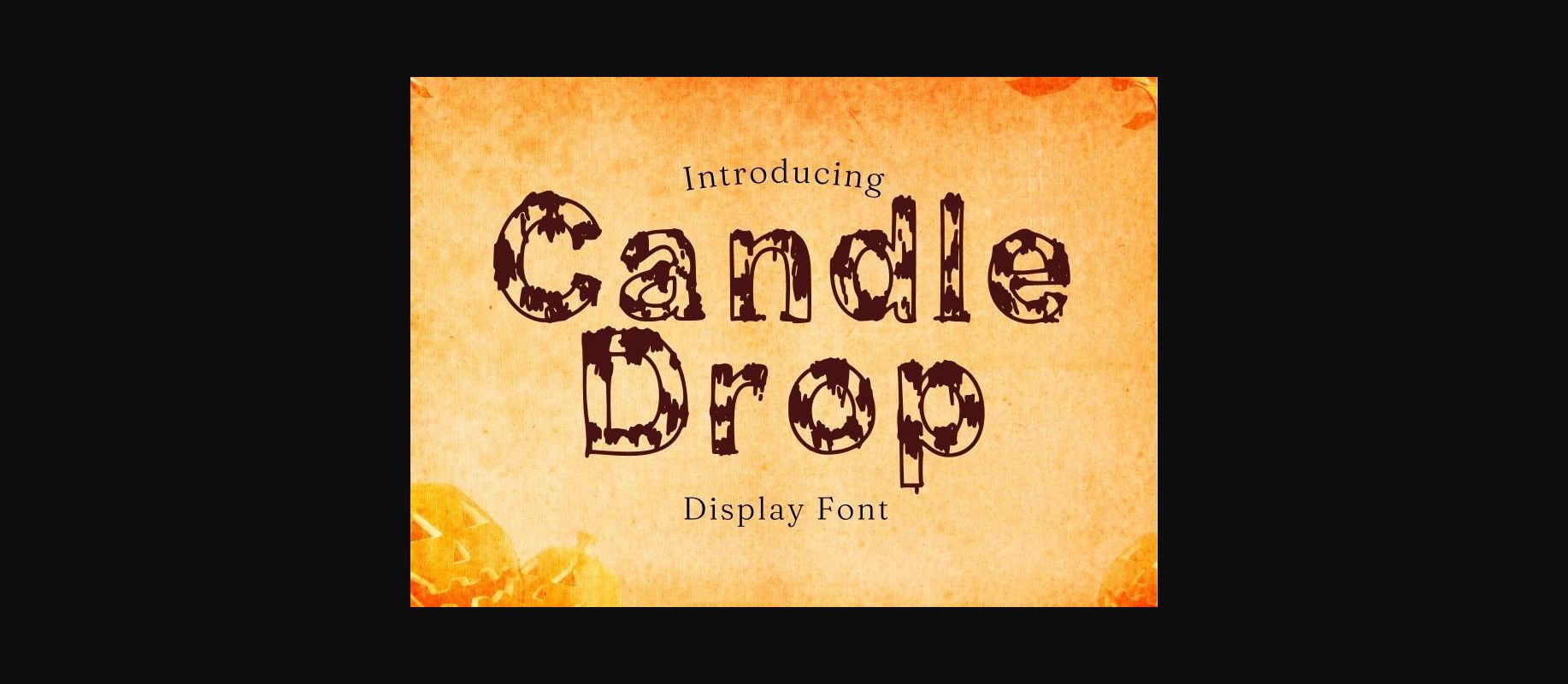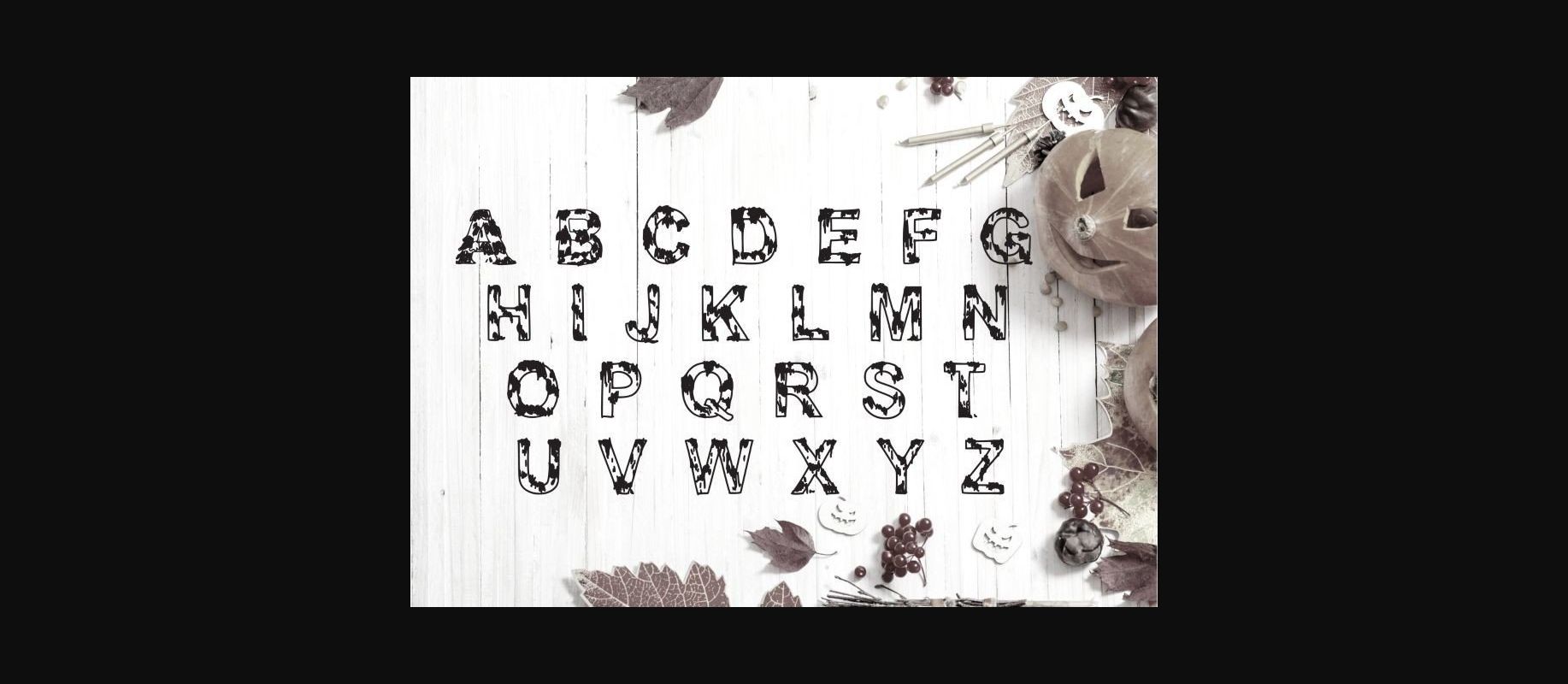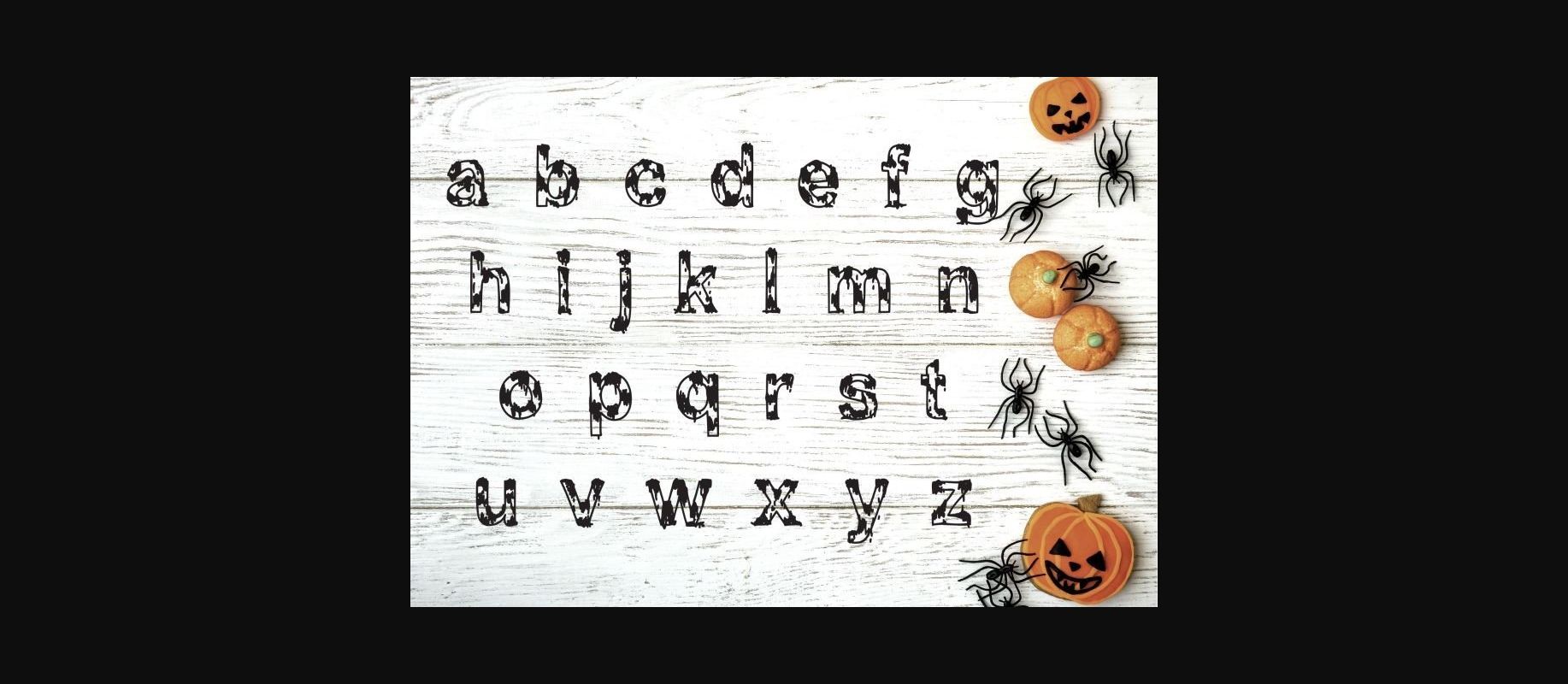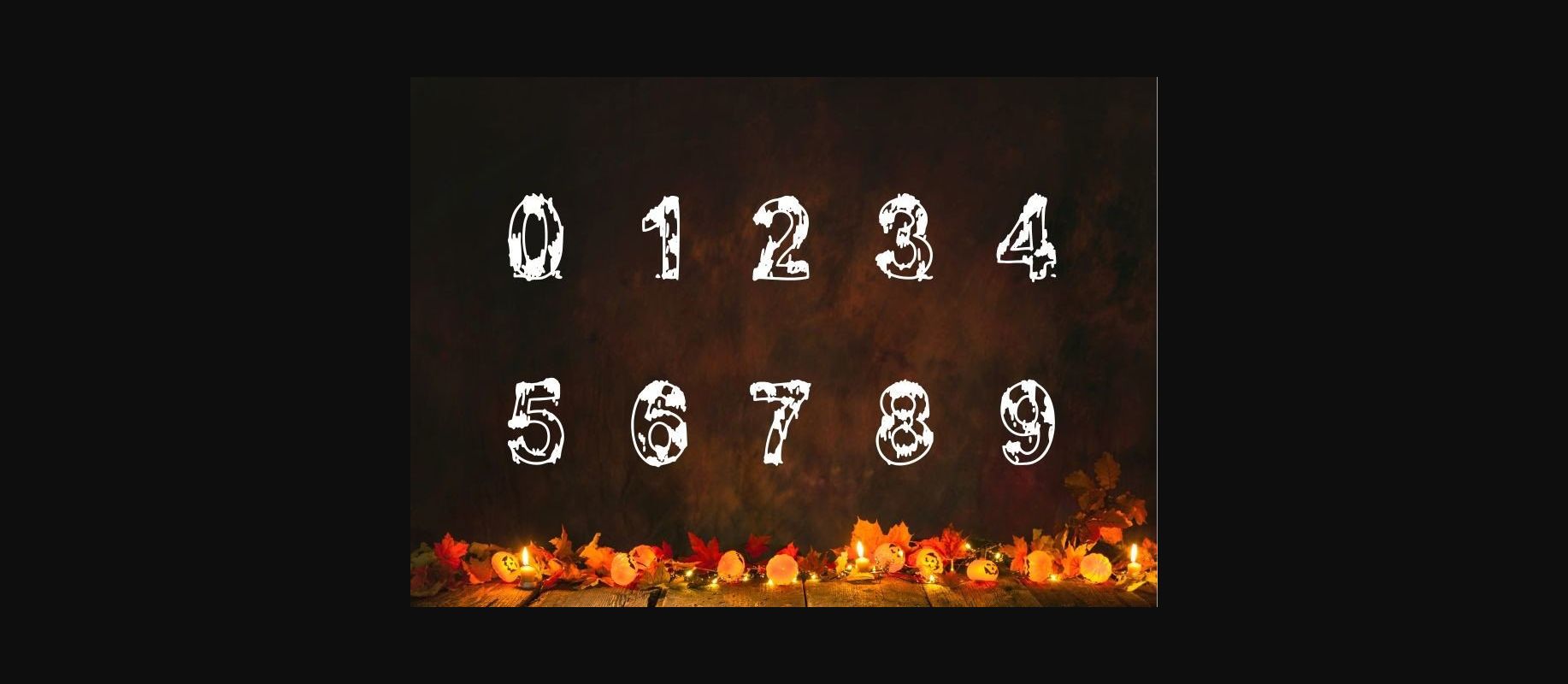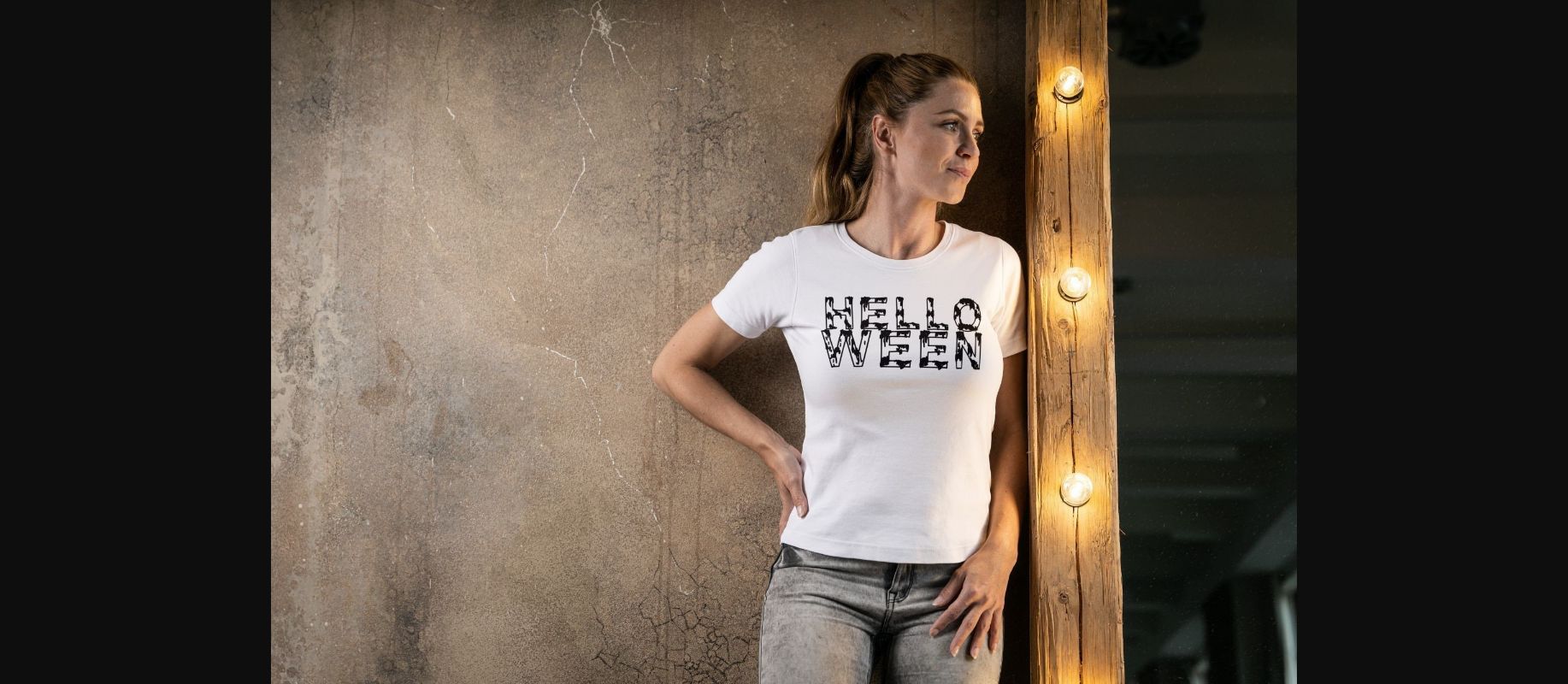
Candle Drop Font
About Candle Drop Font
Candle Drop is a hand-drawn decorative font that looks a bit creepy, mysterious, and spooky. It is perfect for creative projects related to Halloween, such as Halloween storybooks, Halloween party invitations, social media posts, etc.